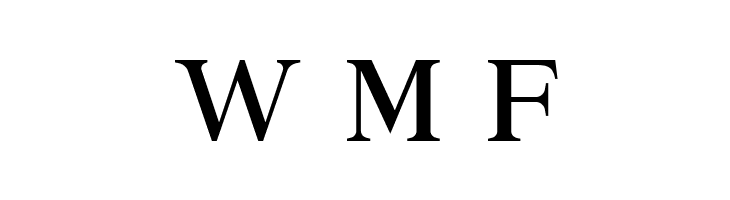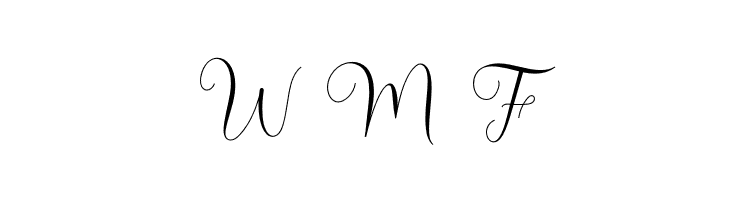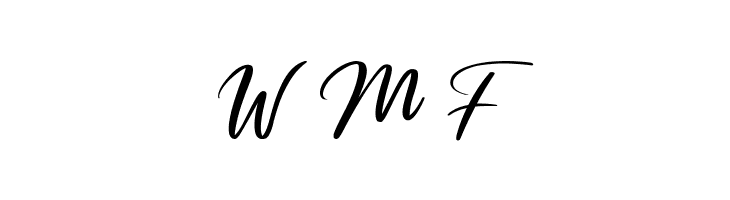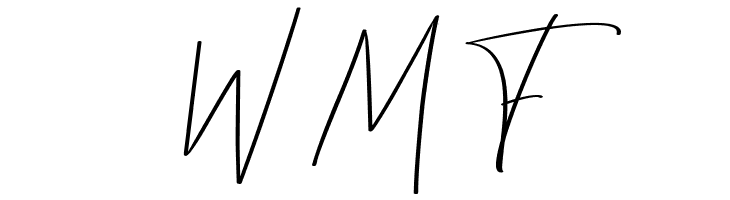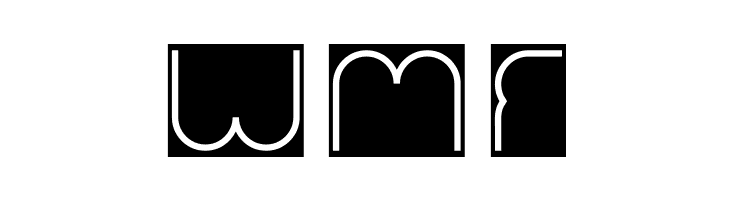
A modern, geometric font with a unique inverse style and consistent character height.
A bold, playful font with rounded, thick strokes and a friendly appearance.
A playful and expressive handwritten font with dynamic strokes.
A classic serif font with elegant, pronounced serifs and medium contrast.
A bold, handwritten font with dynamic, flowing strokes.
A bold, geometric font with a vintage sports style.
A cursive, handwritten-style font with elegant, flowing strokes.
A playful, handwritten font with fluid strokes and a casual, dynamic feel.
A lively handwritten font with elegant, flowing characters and medium contrast.
A bold, geometric font with circular cutouts for a playful, modern look.
A lively and playful script font with a handwritten feel.
A bold, hand-painted style font with dynamic, expressive strokes.
A bold, brush script font with dynamic, hand-painted strokes.
An elegant script font with flowing lines and intricate swashes.
A bold, gothic blackletter font with sharp, angular lines and intricate detailing.
A bold, energetic script font with fluid strokes and a dynamic style.
A graceful script font with fluid strokes and high contrast, perfect for elegant designs.
A bold, angular, and italicized font with a dynamic and energetic style.
A bold, geometric font with sharp angles and a modern, edgy style.
A bold, geometric font with sharp angles and a futuristic feel.
A bold, italic font with sharp angles and a dynamic, modern style.
A bold, angular italic font with a futuristic and aggressive style.
A bold, geometric font with hollow interiors and a futuristic style.
A bold, geometric hollow font with a futuristic and striking design.
An elegant script font with flowing, ornate cursive letters.
A dynamic, cursive script font with elegant, flowing strokes.
A dynamic and expressive handwritten script font with a modern flair.
A playful, handwritten font with smooth, rounded edges and a casual flow.
A bold, playful font with thick, rounded, and bubbly characters.
A bold, geometric font with sharp angles and a blocky, futuristic style.
A lively and expressive handwritten font with fluid strokes.